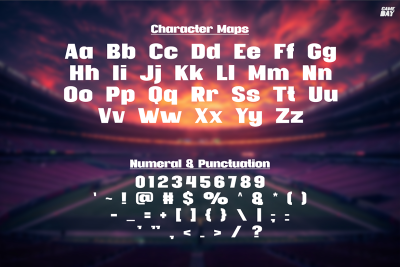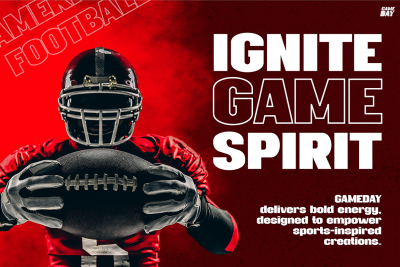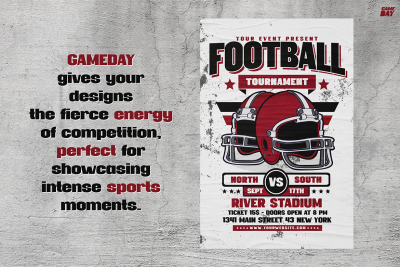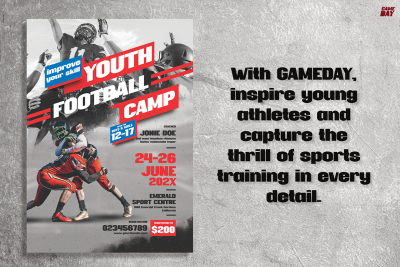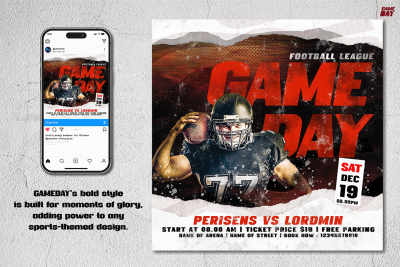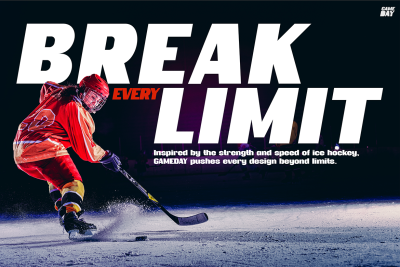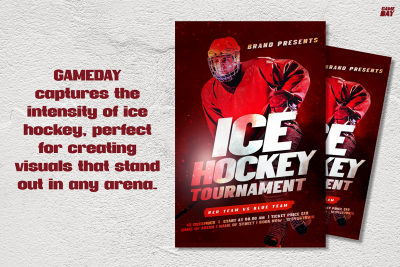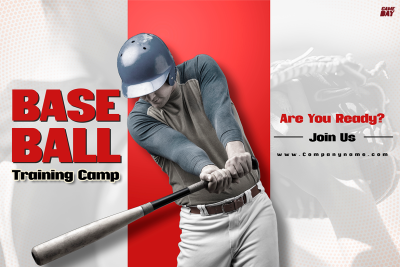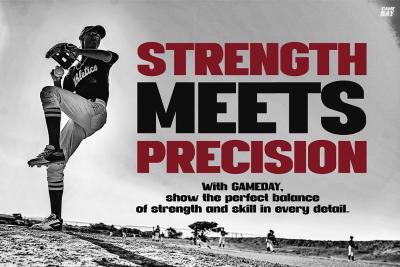
Sport Font Gameday is a bold, impactful typeface designed to capture the intense energy of sports events. Not only does this font grab attention with its strong letterforms, but it also conveys a sense of strength, teamwork, and excitement. Each character stands out, making it perfect for designs that need to express power and enthusiasm. Inspired by the thrill of game day, this font creates visuals that leave a strong impression.
Furthermore, the font combines boldness with simplicity, ensuring readability across both print and digital media. Whether on billboards, posters, or digital ads, this font remains clear and memorable. Its thick, bold strokes draw the eye, adding urgency and excitement. Therefore, each letter contributes to a powerful visual experience.
Beyond sports themes, this font suits a variety of creative projects. Its adaptable design meets modern needs for impactful messaging. From motivational quotes to brand identity, this font works well for designers who want to convey energy and team spirit. Indeed, its bold structure is ideal for projects focused on community, teamwork, and celebration.
Sport Font Gameday Perfect For
Sport Font Gameday is a great choice for designers, marketers, and creators aiming to add energy to visuals. Specifically, itโs especially fitting for sports branding. The fontโs bold style embodies athletic competition and team spirit. Sports teams, leagues, and brands can use it for logos, banners, and promotional materials. Its strong lines offer professionalism while also giving an approachable feel that resonates with both fans and players.
Additionally, this font works well for fitness and gym promotions. Fitness studios, gyms, and trainers can use it for motivational posters, schedules, branded gear, and signage. Its assertive style reflects strength and resilience, inspiring audiences to reach their goals. Whether on social media or within a fitness studio, Sport Font Gameday effectively delivers messages of power and endurance.
Furthermore, digital content creators focusing on sports or fitness themes will find this font valuable. On platforms like YouTube and Instagram, where visuals need to attract attention quickly, Sport Font Gameday enhances thumbnails, overlays, and captions. For influencers, trainers, and coaches, this font highlights athletic energy and commitment, boosting audience engagement.
In addition, apparel designers can use this font for athletic wear, team merchandise, and sportswear. Its bold, sturdy look fits T-shirts, hoodies, and hats, appealing to both sports fans and active individuals. Whether for local teams or fitness brands, Sport Font Gameday adds a confident, athletic edge to apparel.
In summary, this font is a versatile typeface suited for sports branding, fitness promotions, events, digital content, and merchandise. Its bold design makes it valuable for any project needing strength and energy. Whether for designers, marketers, or creators, Sport Font Gameday elevates visuals and captures the spirit of sports and fitness.